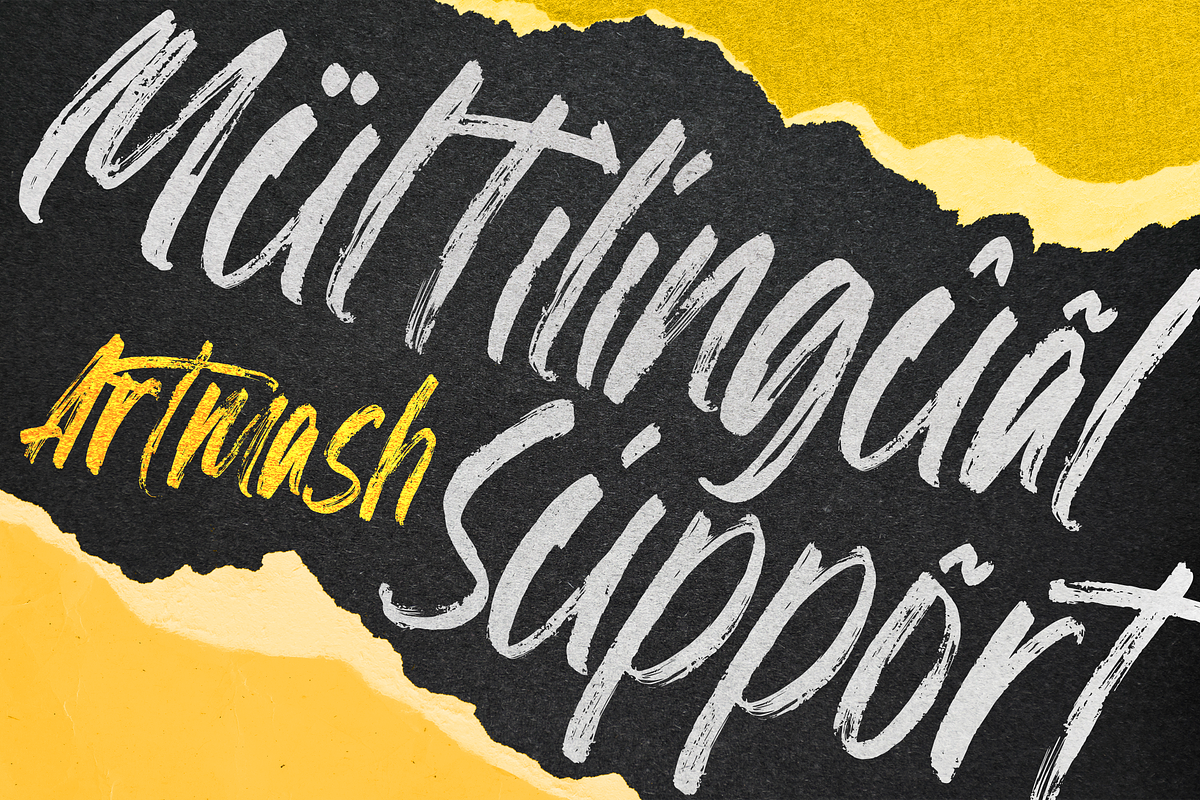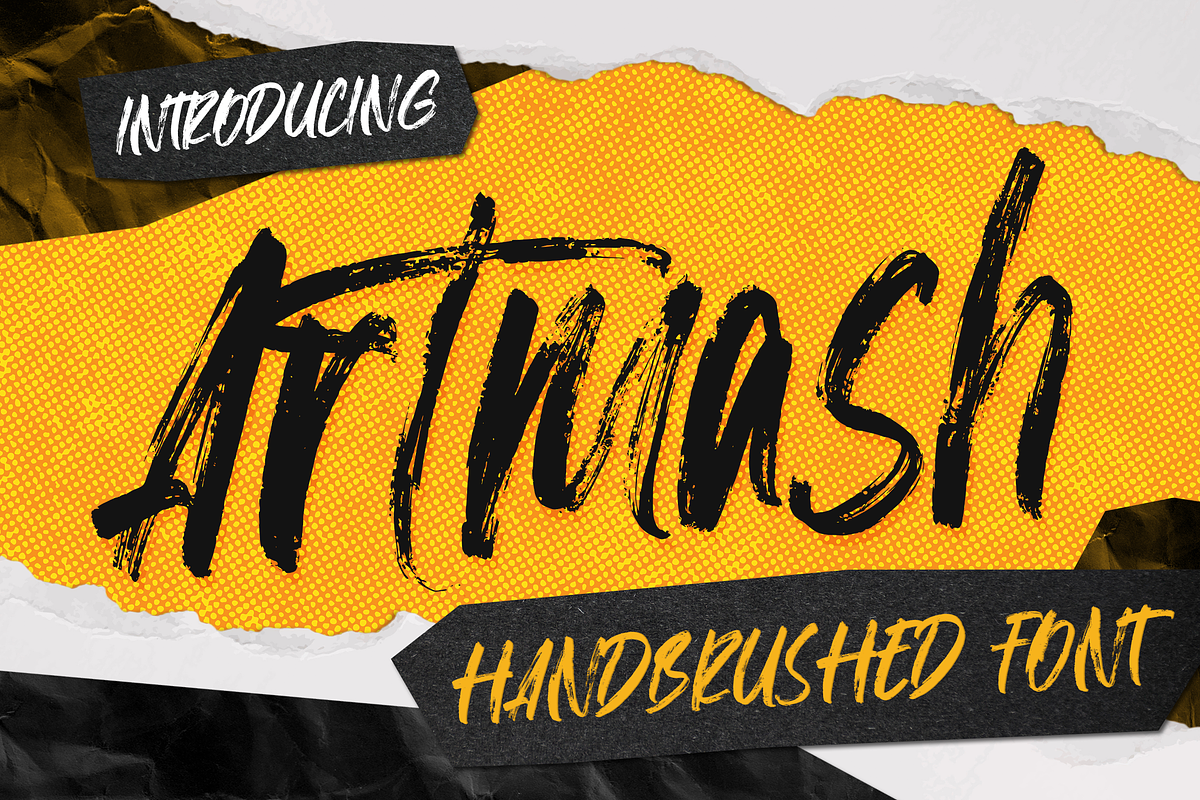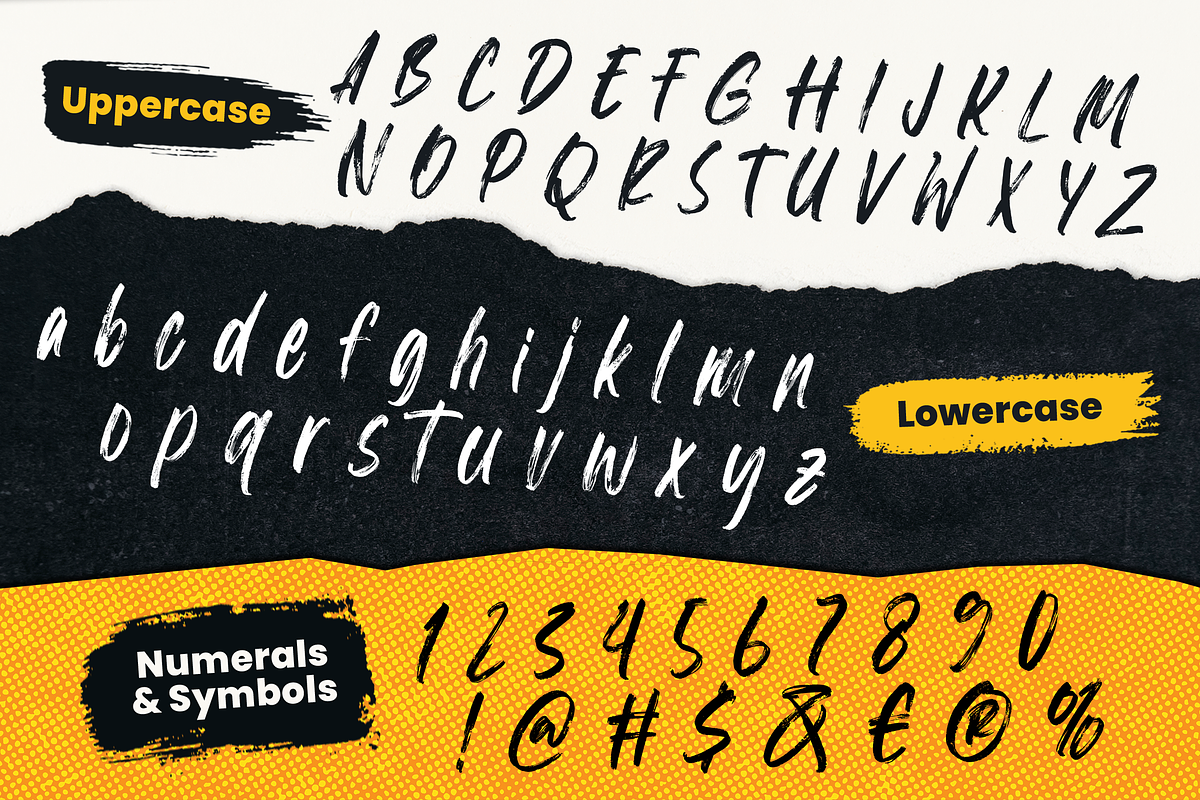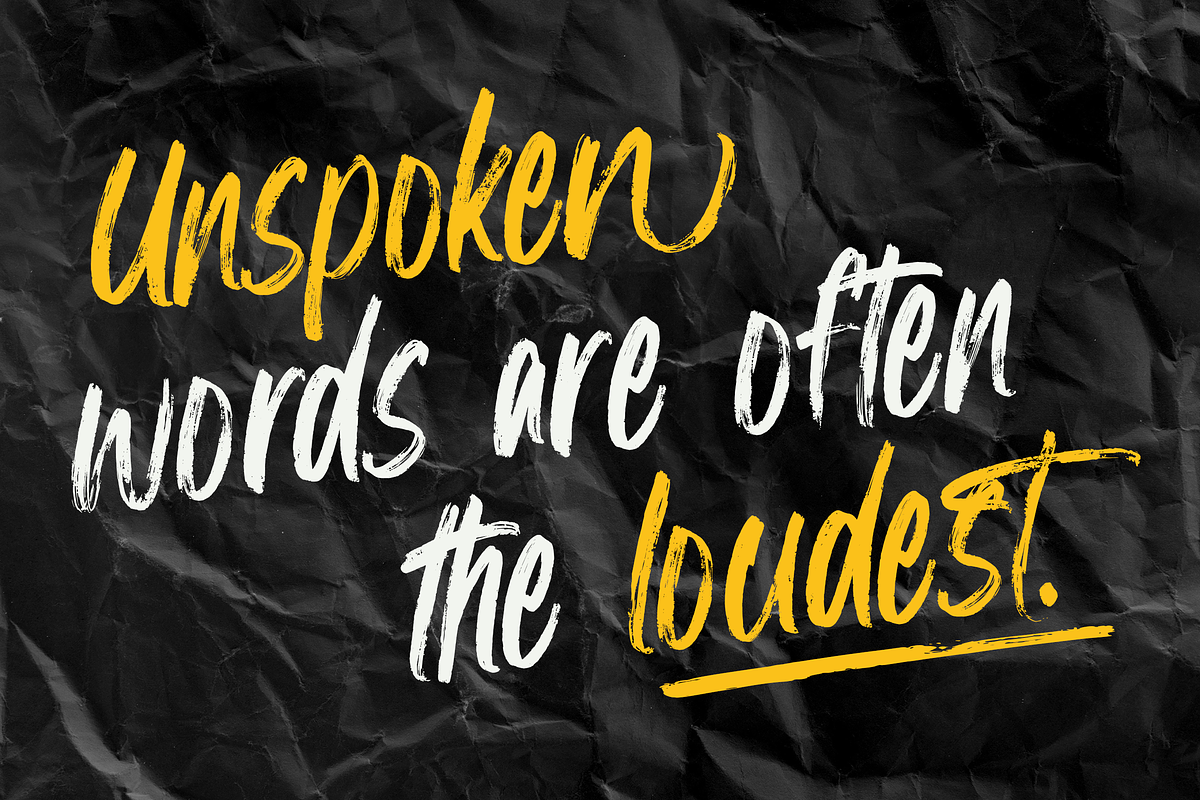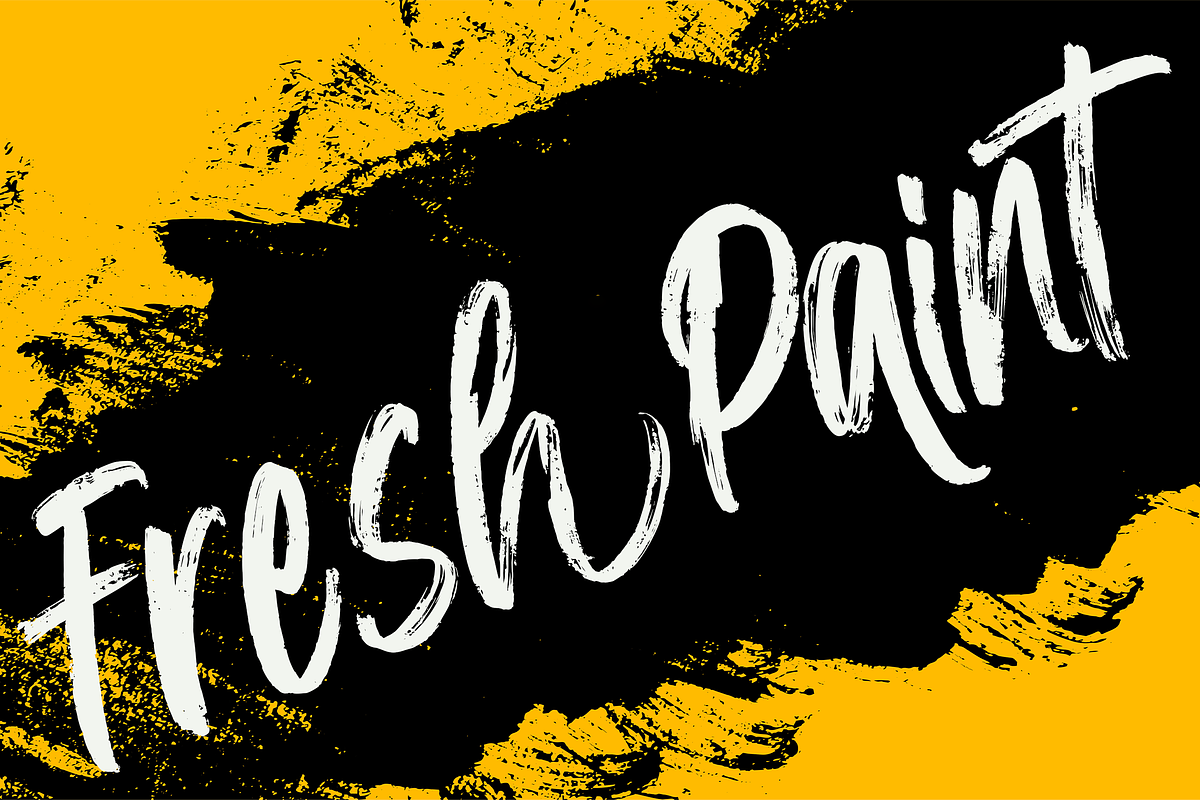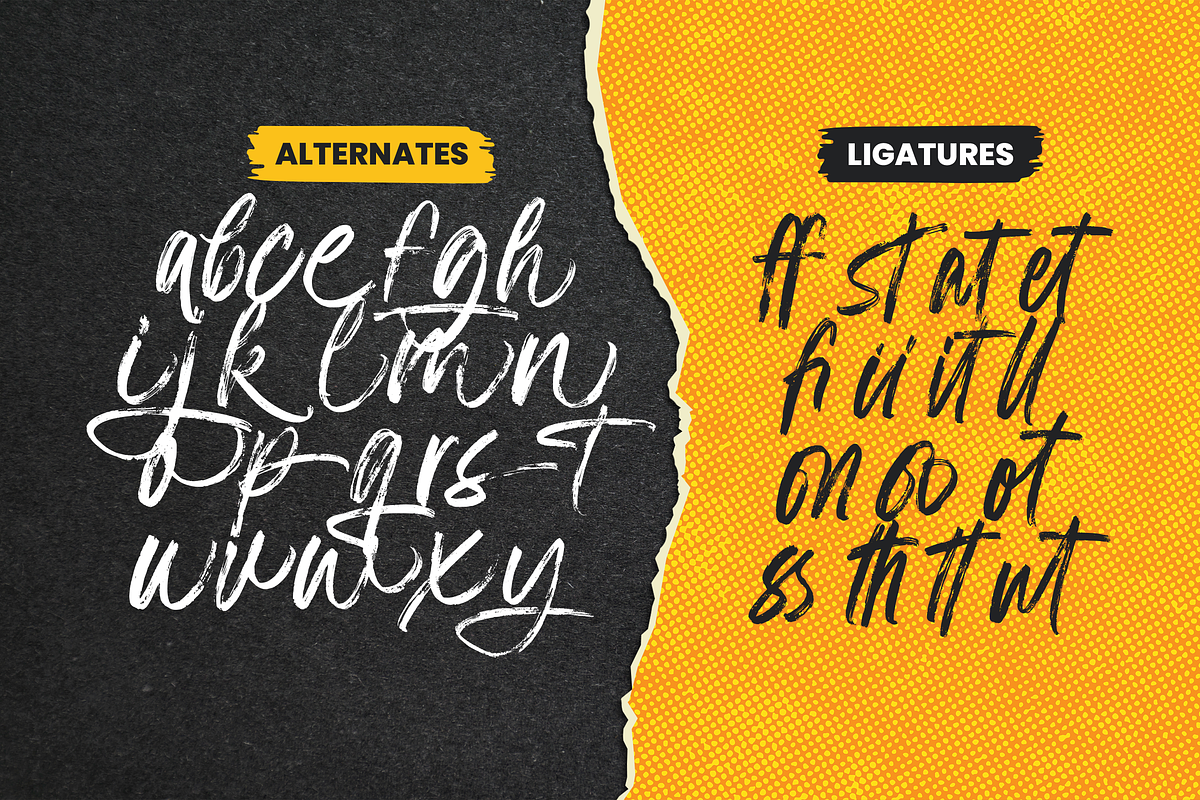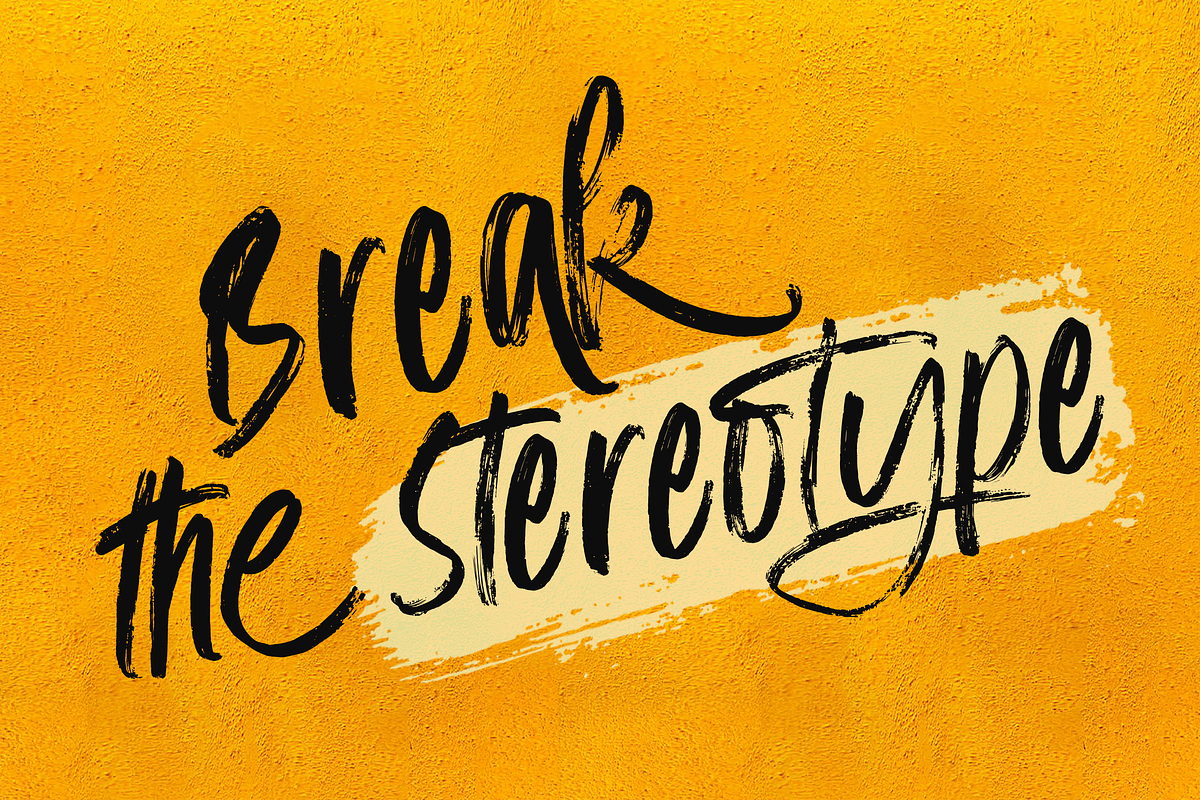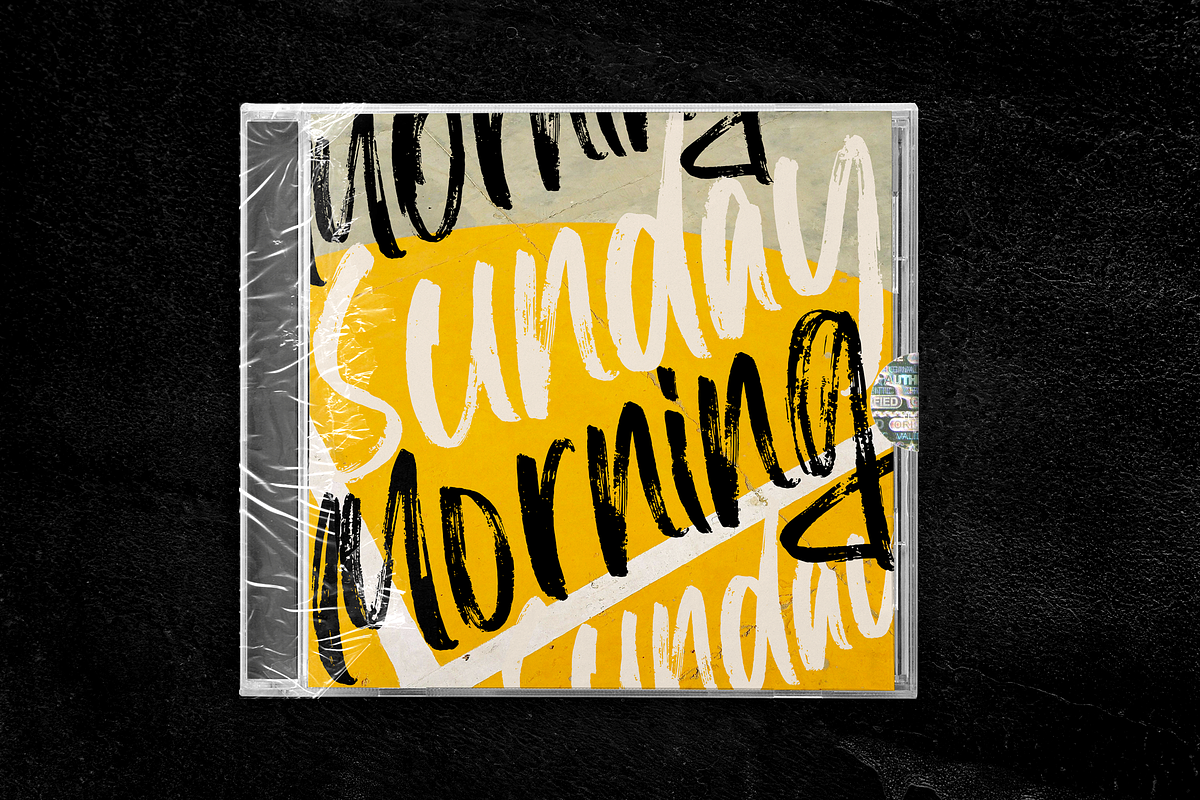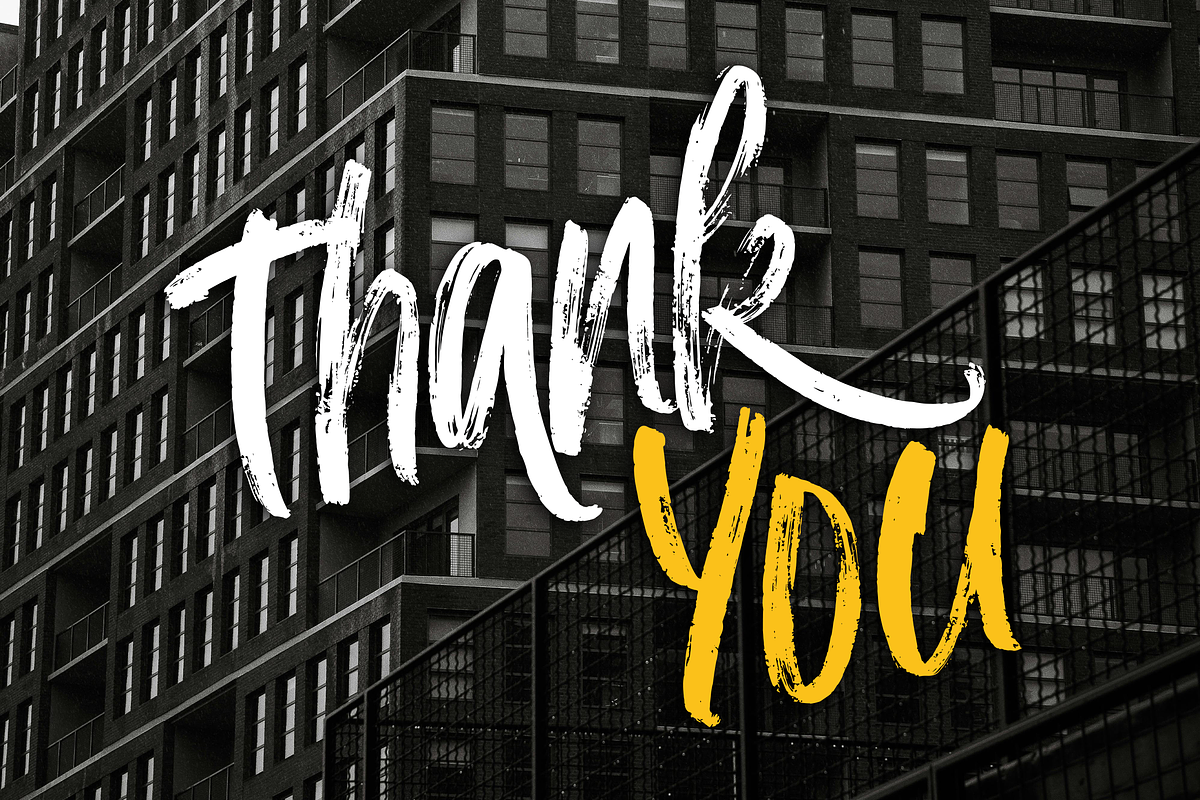
Artmash Font
Meet Artmash, a bold handbrushed font bursting with personality and texture. Perfect for posters, merch, branding, or anything that needs a creative punch, Artmash blends raw brush strokes with modern edge.
Every letter feels handmade and full of attitude, just customize, scale, and let your words shout with style. It’s messy, it’s fun, it’s unforgettable.
- Multilingual & Ligature Support
- Full sets of Punctuation and Numerals